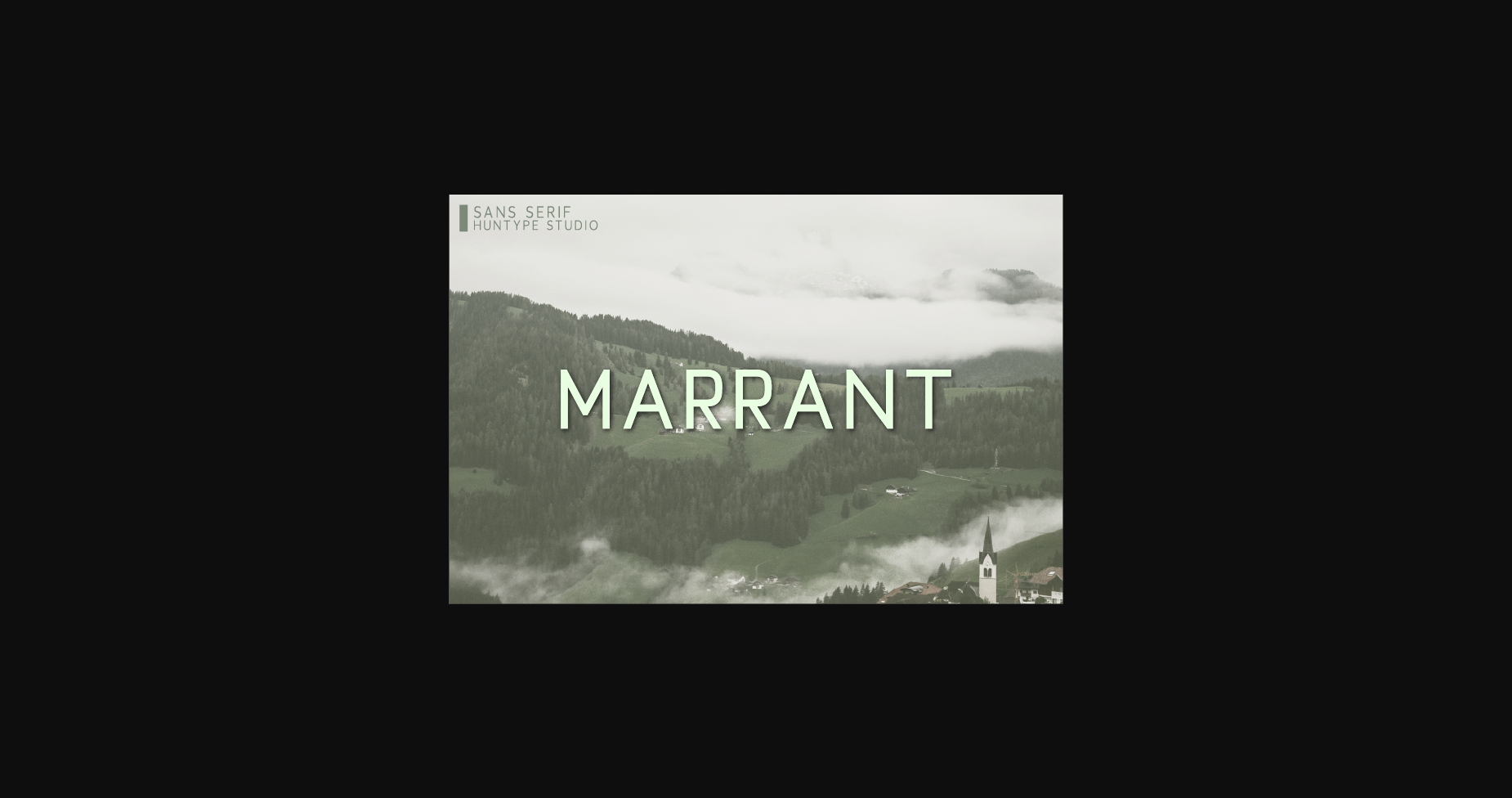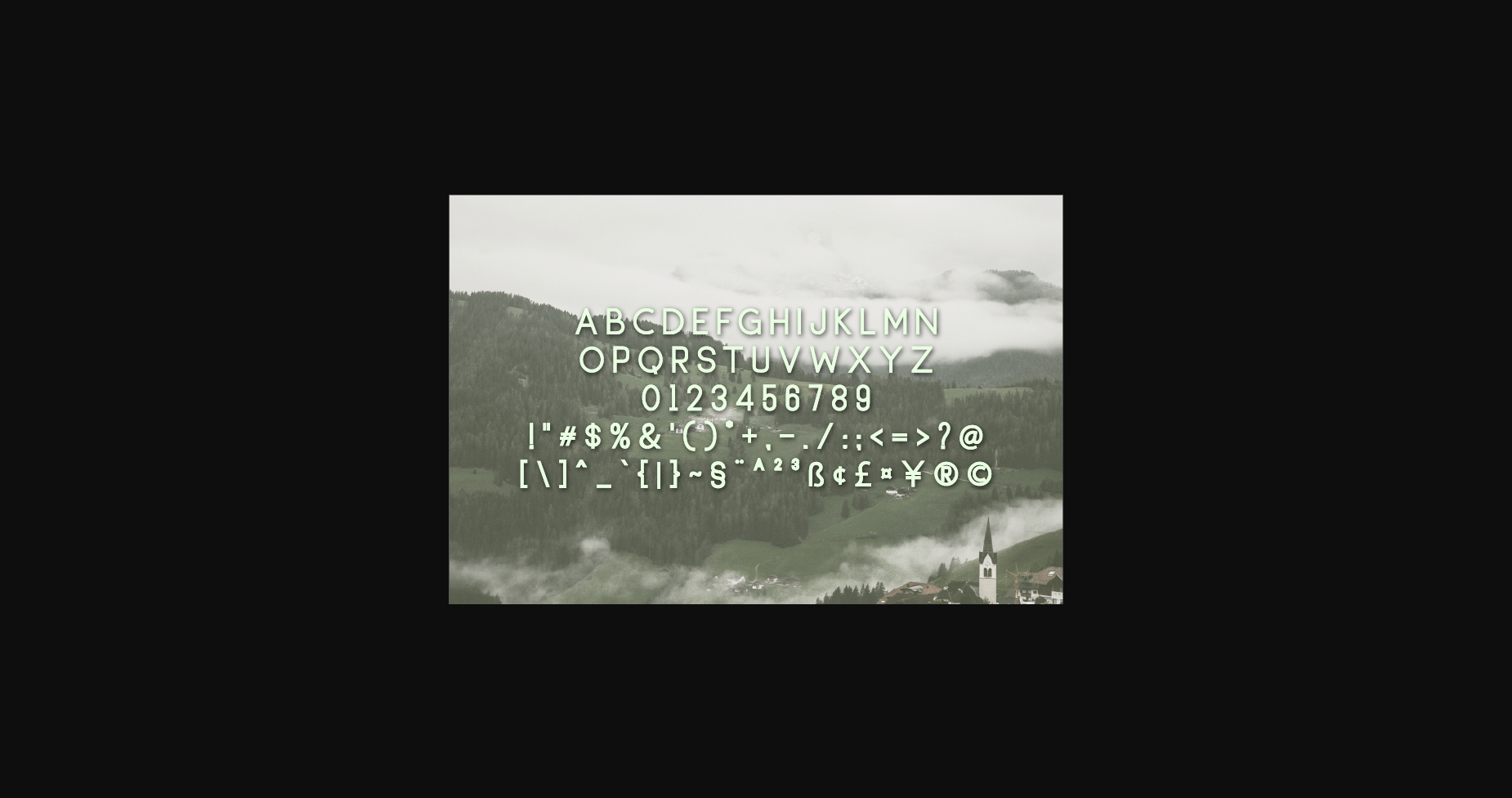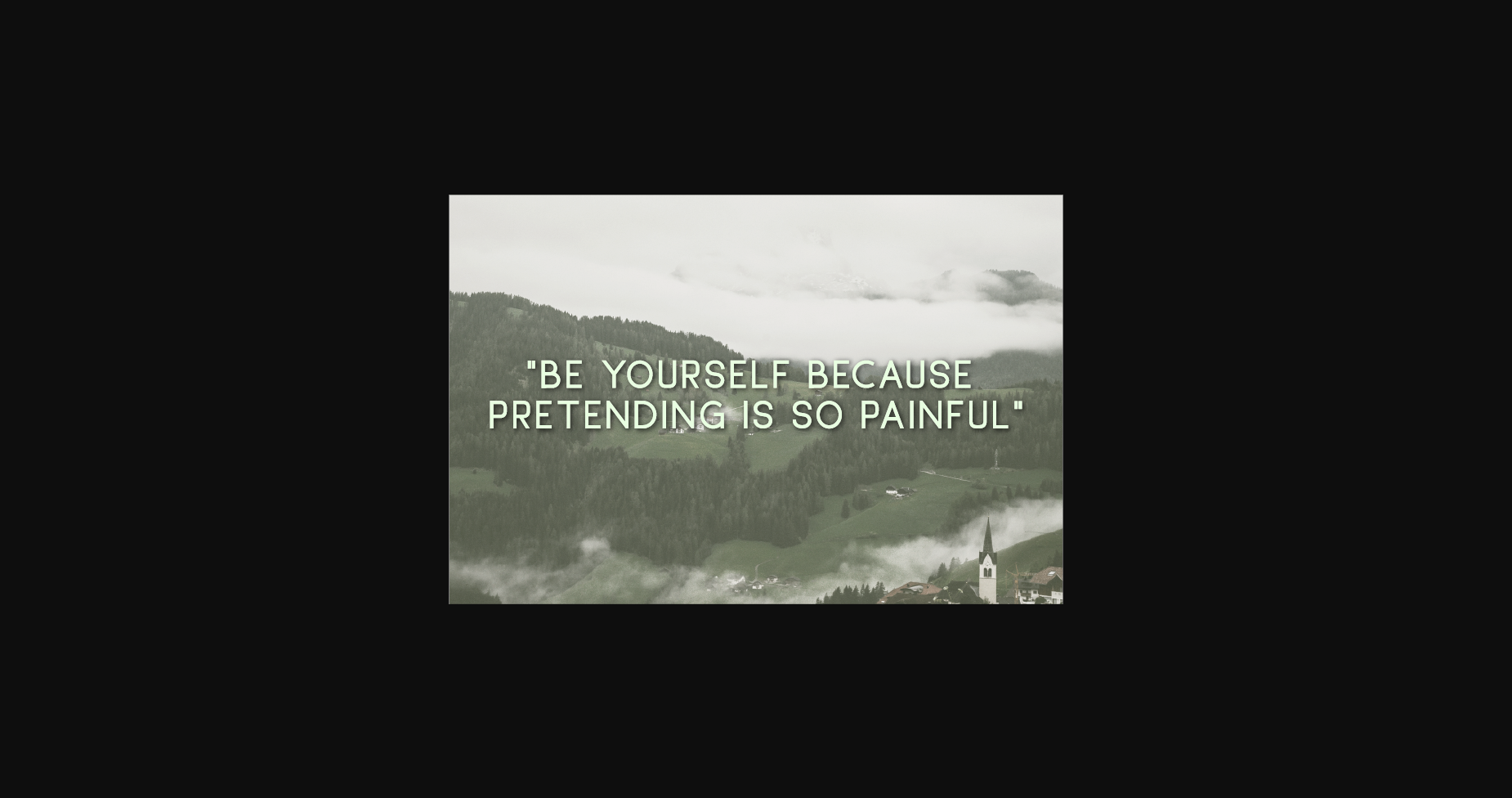
Marrant Font
About Marrant Font
Marrant is a simple and adaptable sans serif font. Whatever the topic, this font will be a wonderful asset to your font library, as it has the potential to enhance any creation.